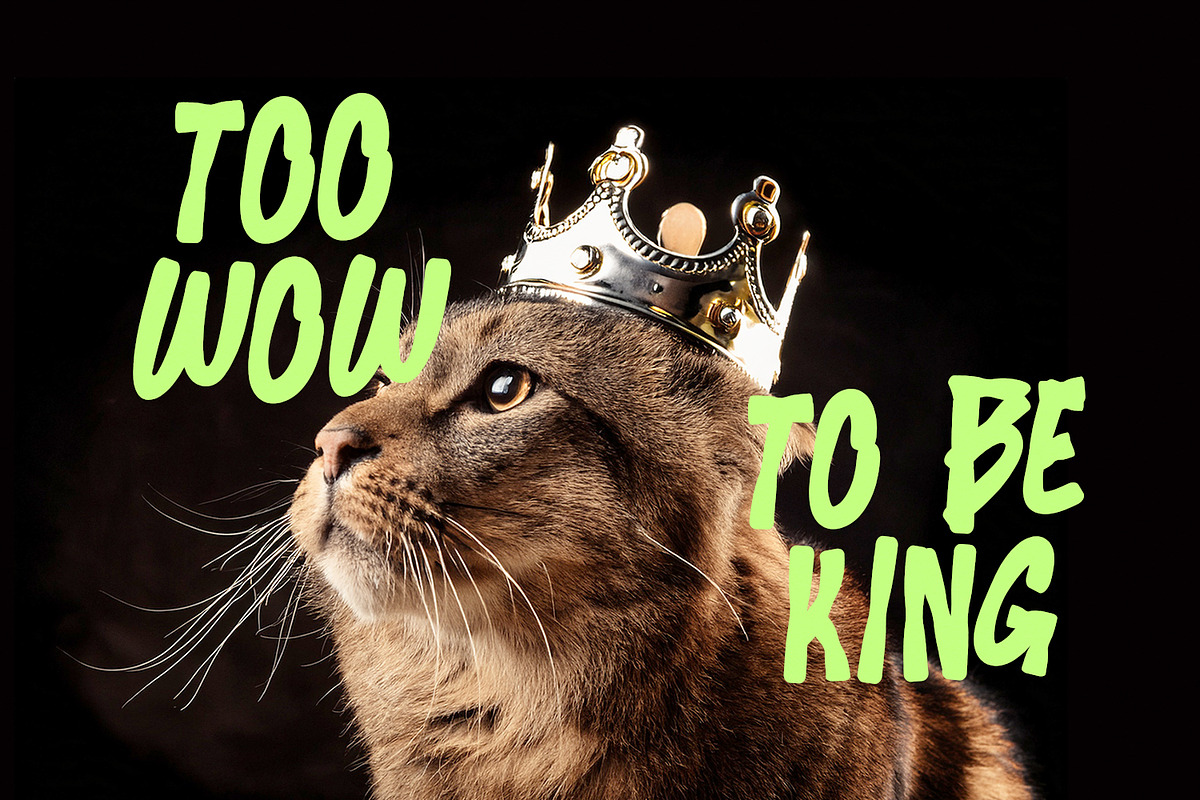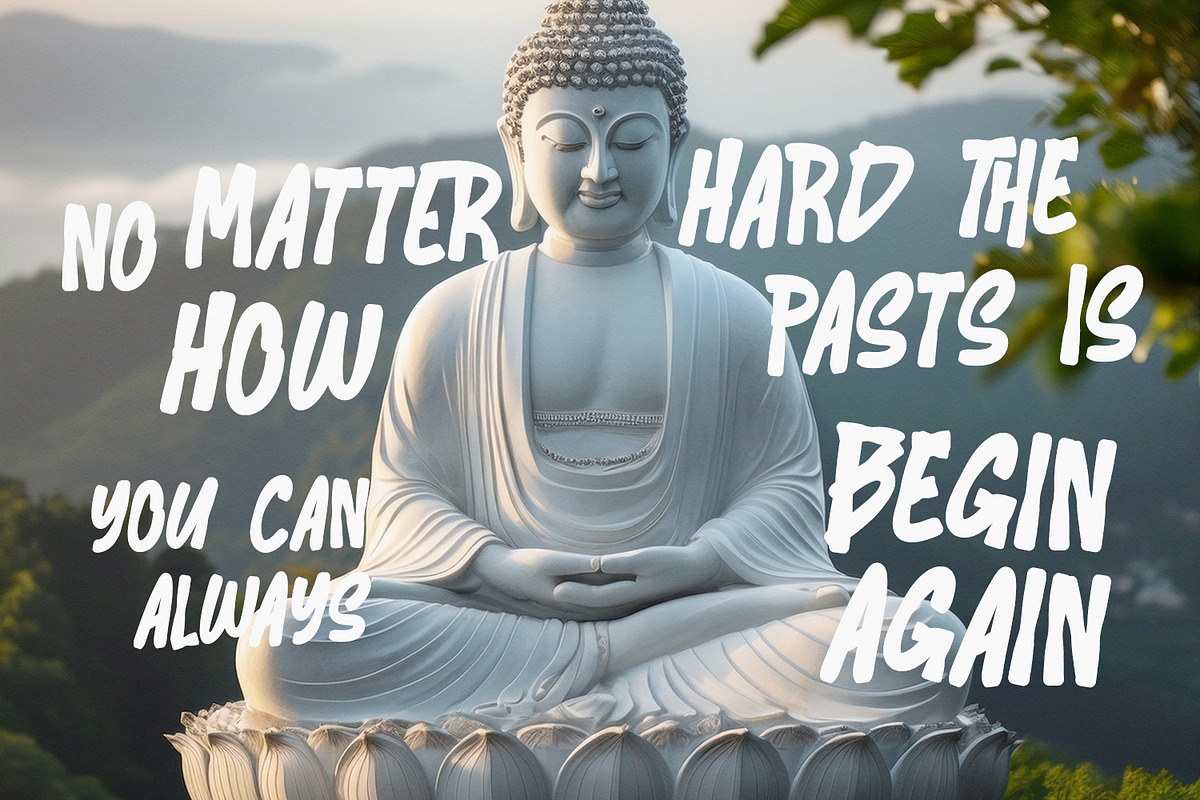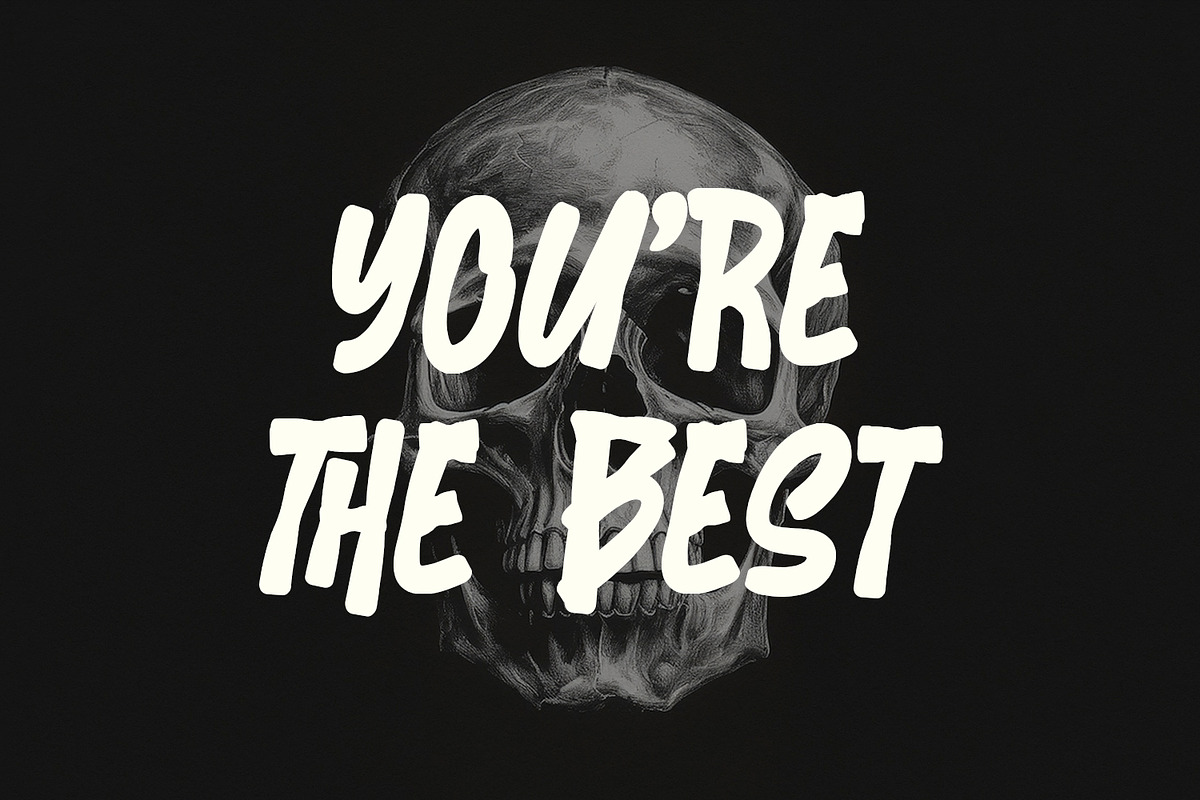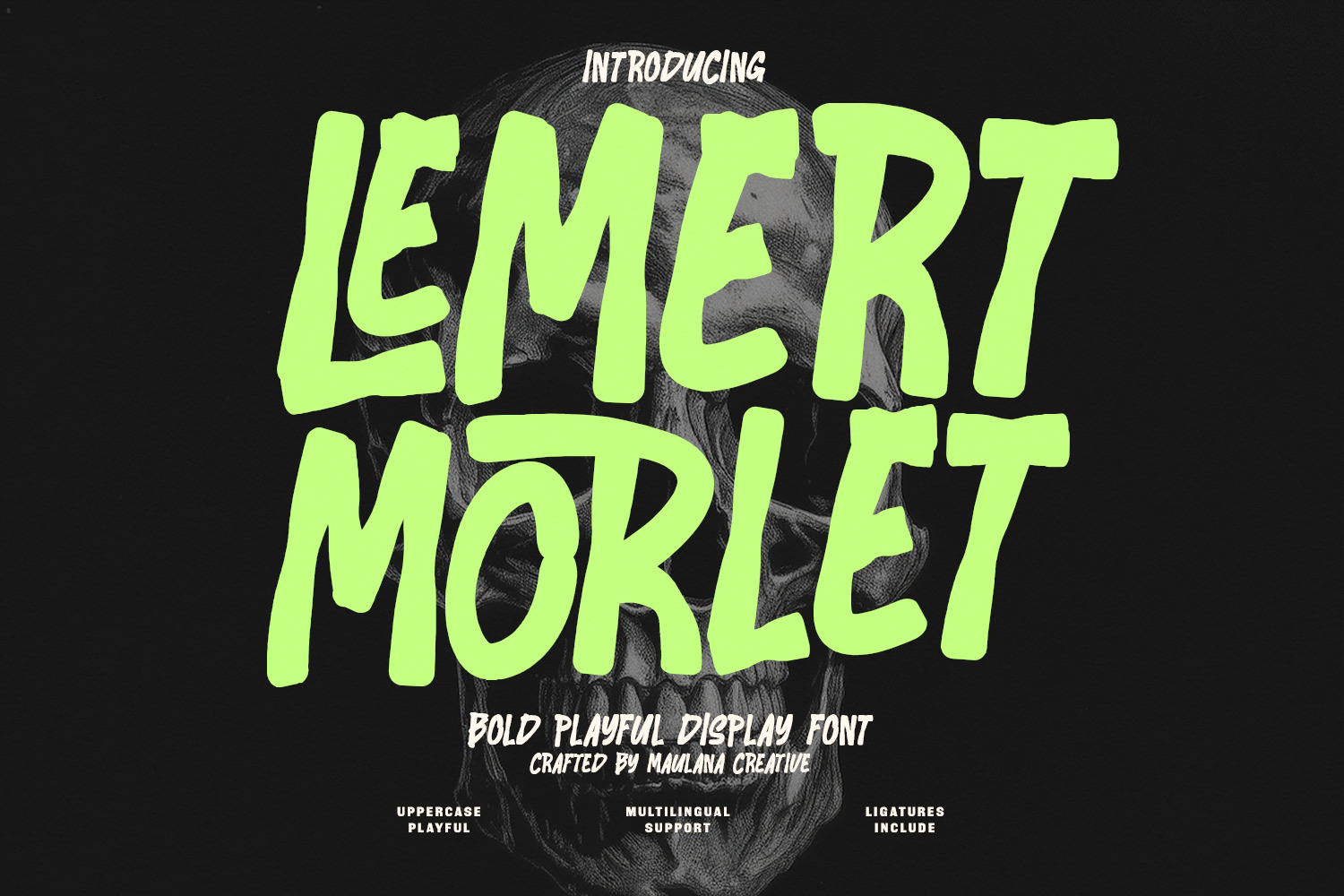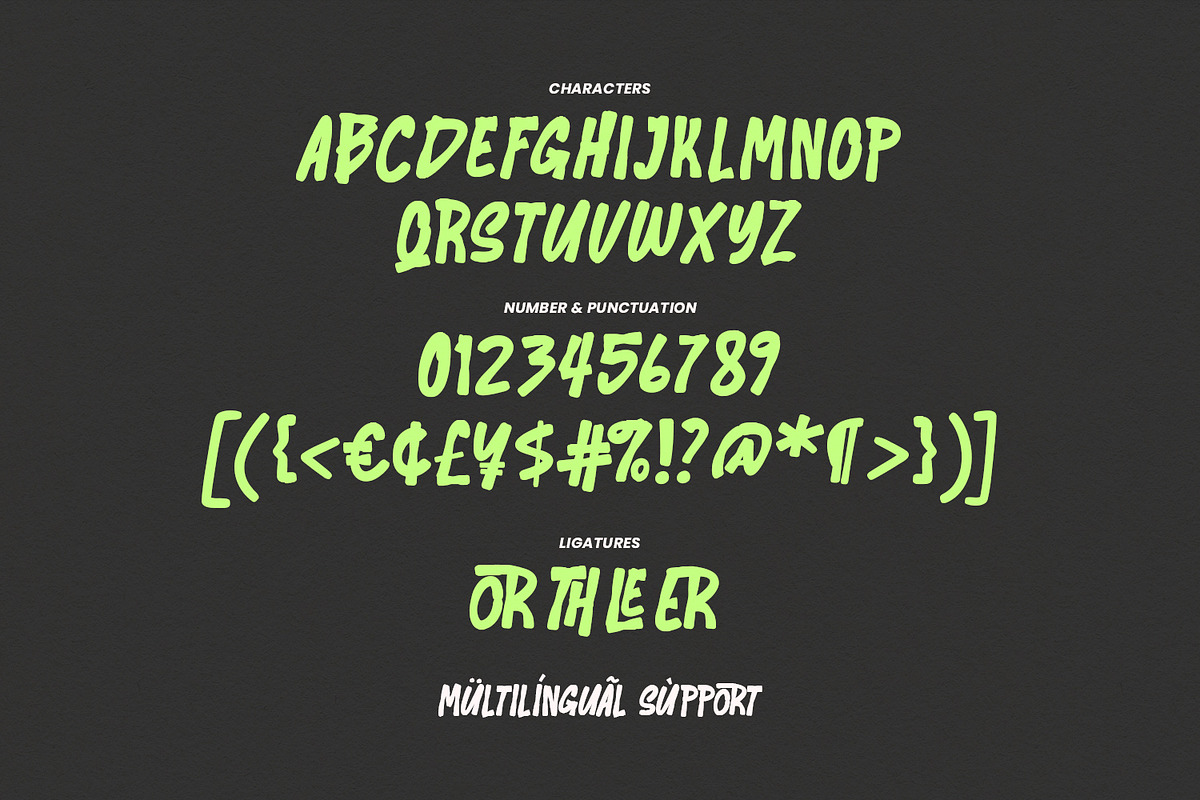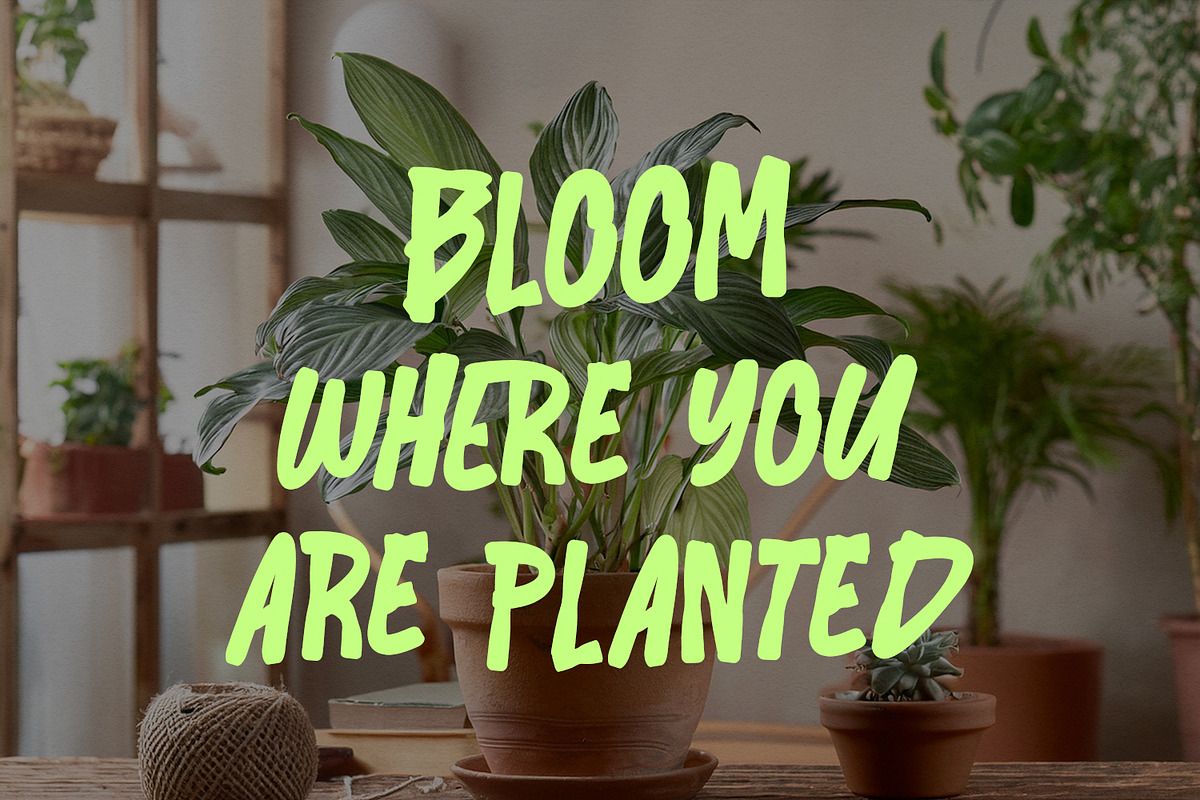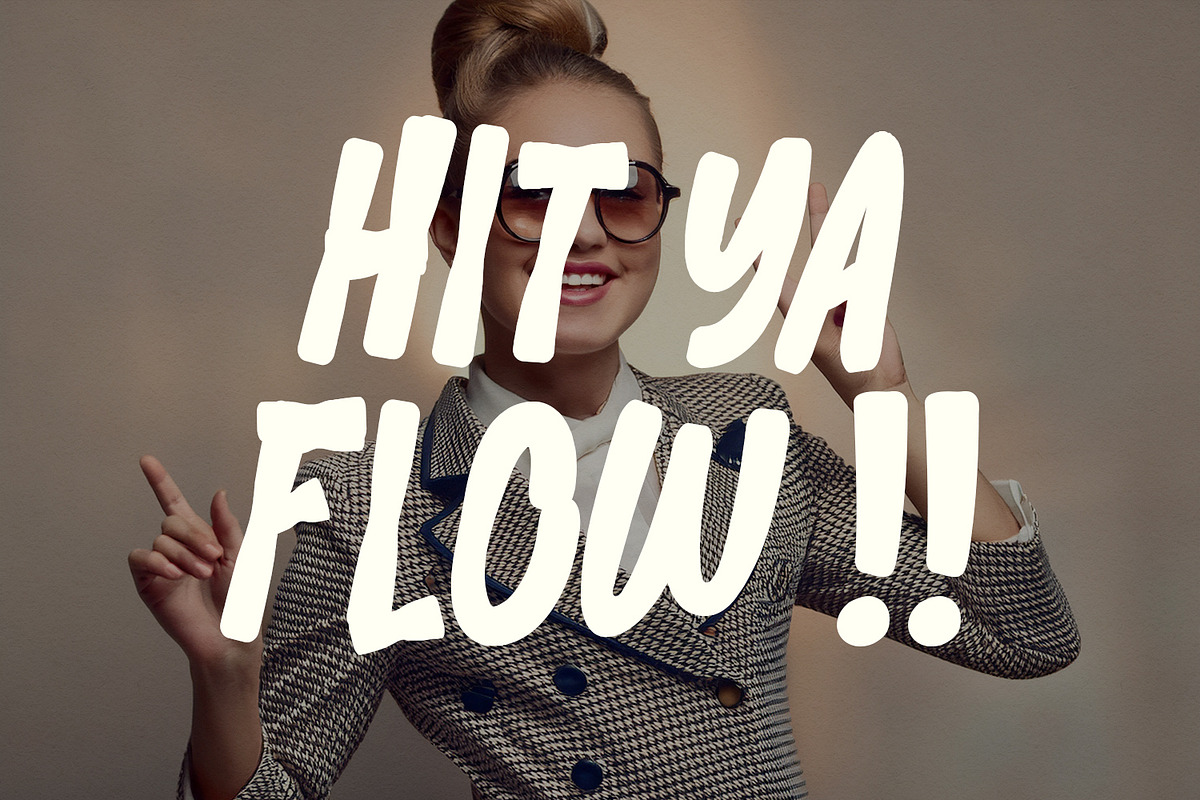
Lemert Morlet Bold Playful Font
Lemert Morlet is a striking display font that combines bold, hand-drawn aesthetics with a vibrant, energetic personality. Characterized by its thick strokes and irregular, organic shapes, this typeface exudes a sense of spontaneous creativity and fun. It features a full set of uppercase characters, numerals, and extensive punctuation, along with unique ligatures that enhance its fluid, custom feel. Designed for high-impact visual communication, Lemert Morlet is ideal for headings, social media graphics, posters, and any project requiring a distinct, lively typographic voice. Its multilingual support ensures versatility across various global design applications.
- Ligature for a natural handwriting flow